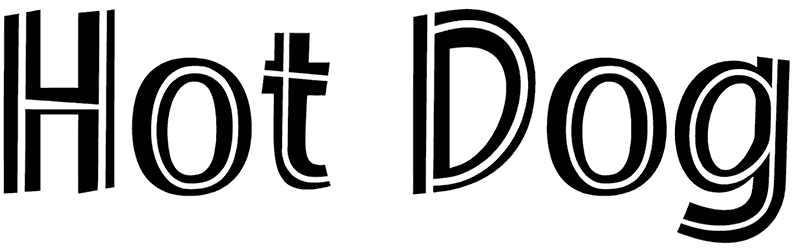
Hot Dog Font
If you are looking for a timeless font for your project, the Hot Dog could be one of the best choices. You are looking at one of the most fabulous outline fonts that can attract much attention and capture the audience.
This inline font donates an approachable feeling to your designs like headlines, book covers, scientific programs, school projects, and branding.
Designed by: Toko Laris Djaja